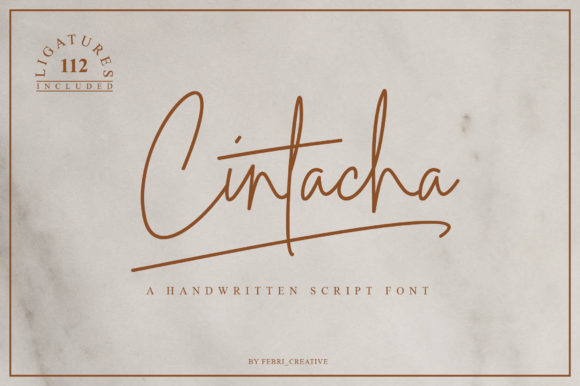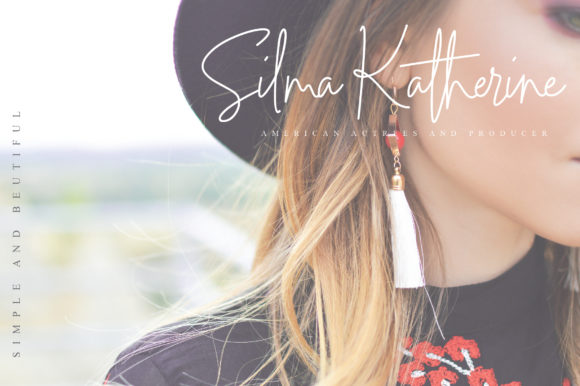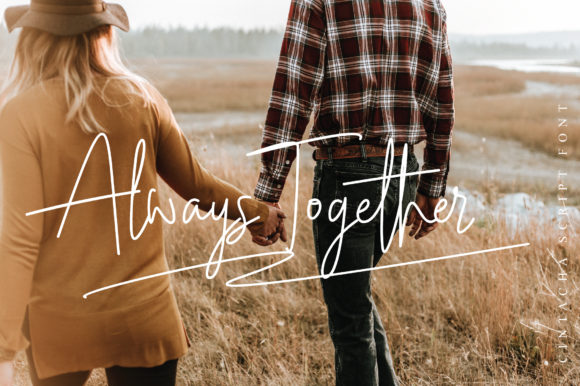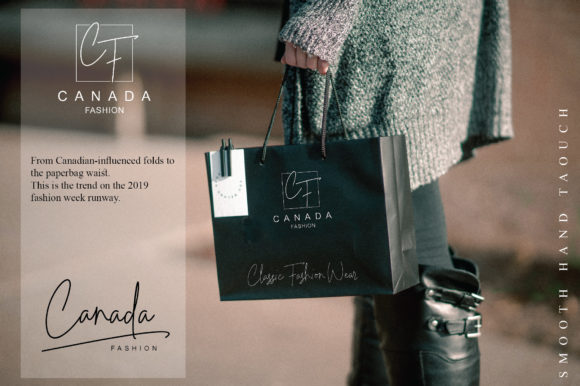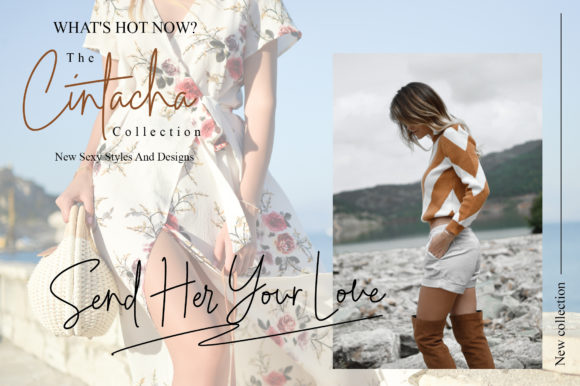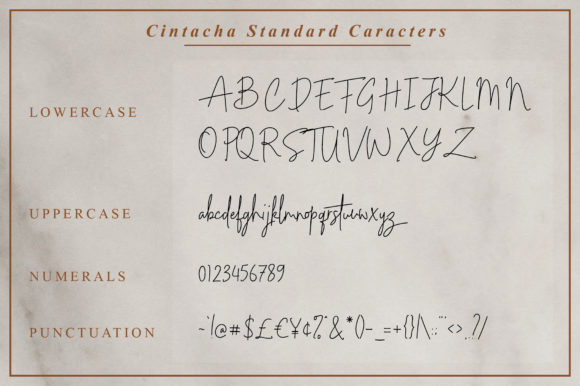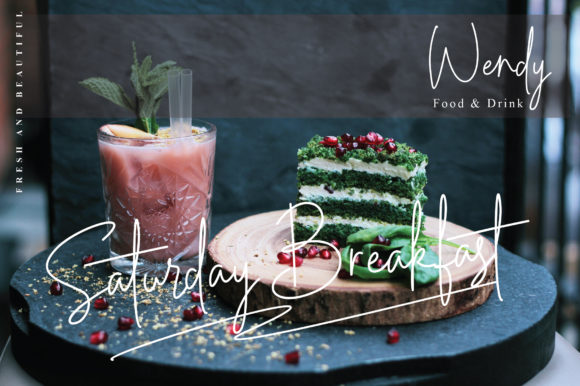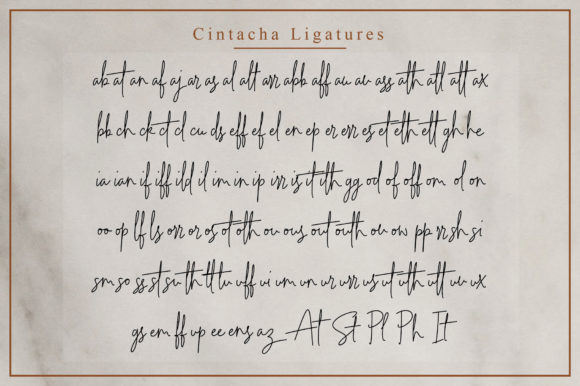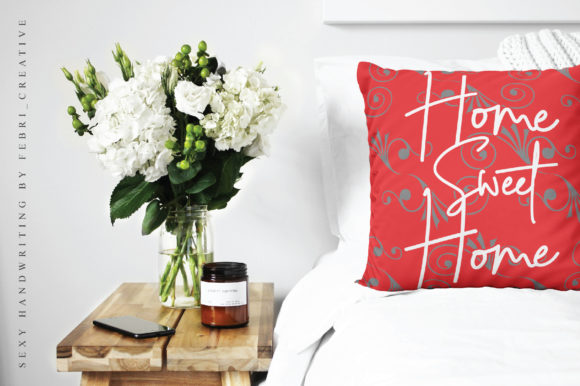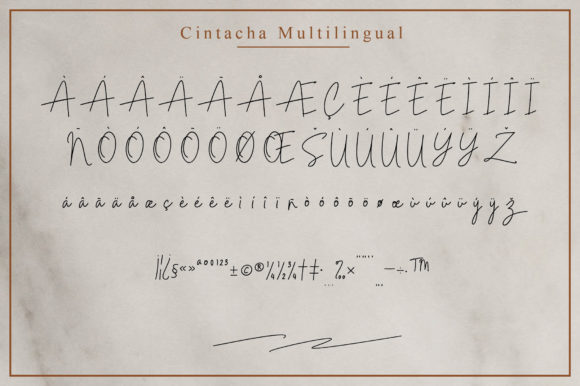
Cintacha Font
About Cintacha Font
Cintacha is a stunning and light handwritten font with an amazing feel. It will turn any design project into a stand out!